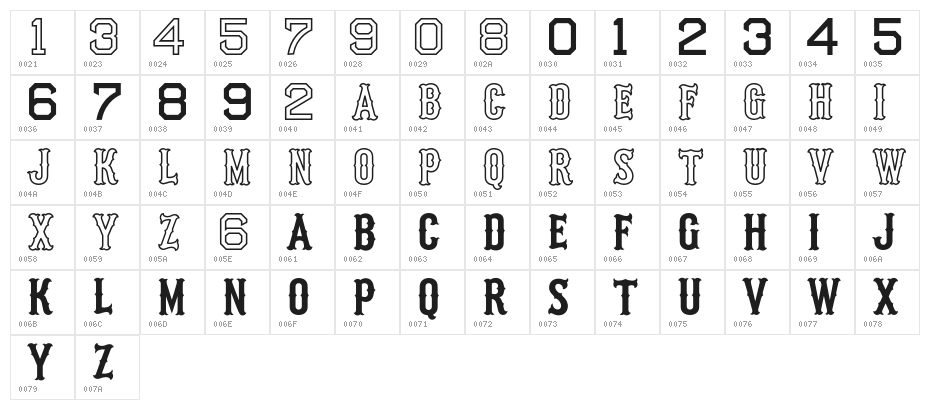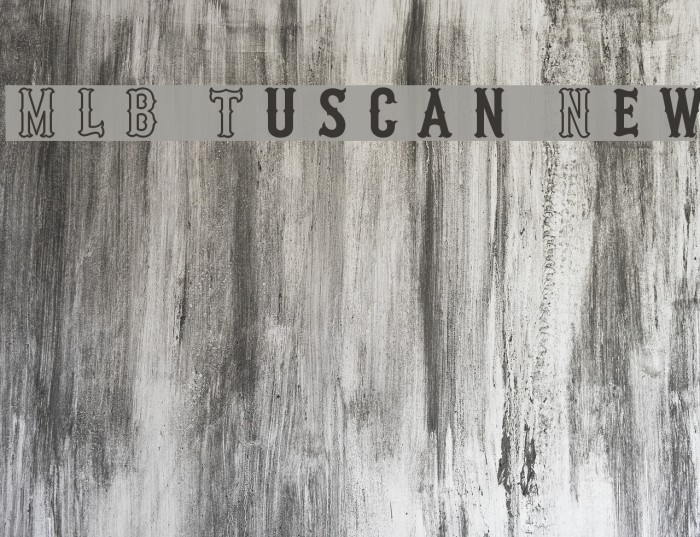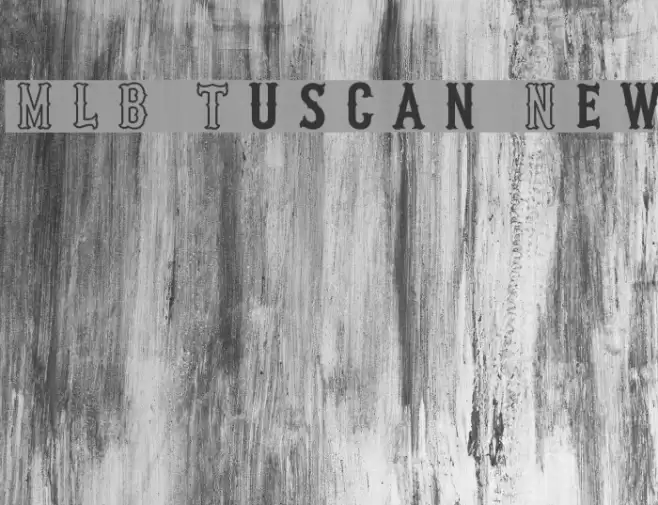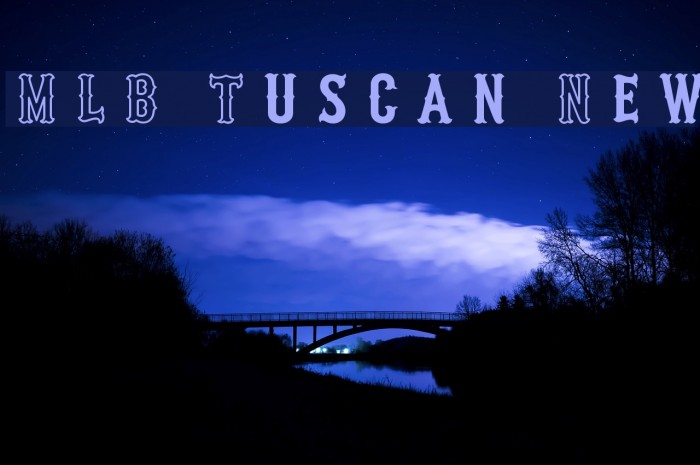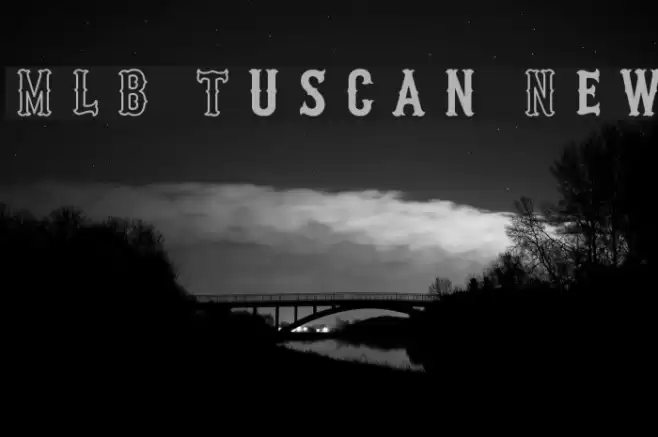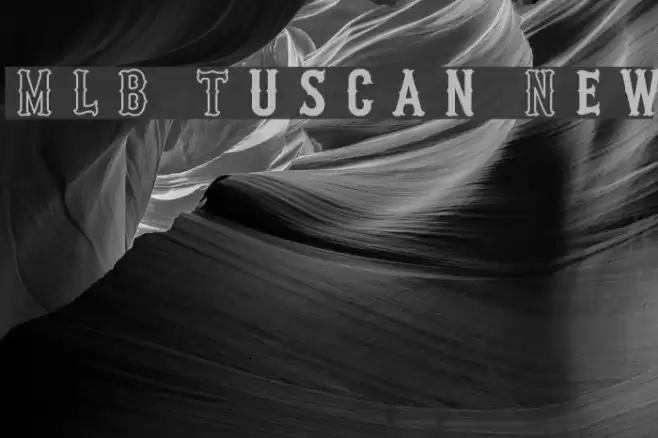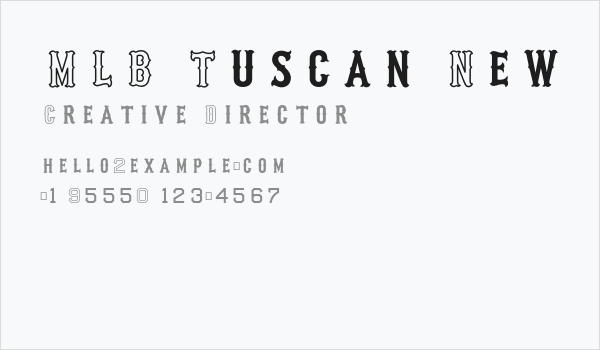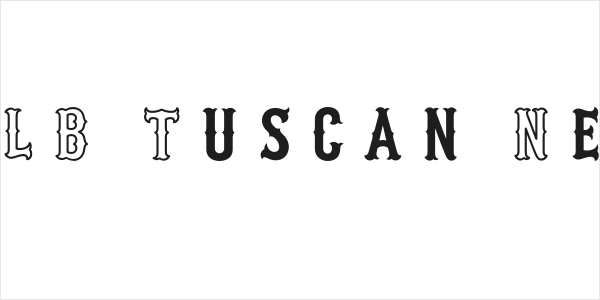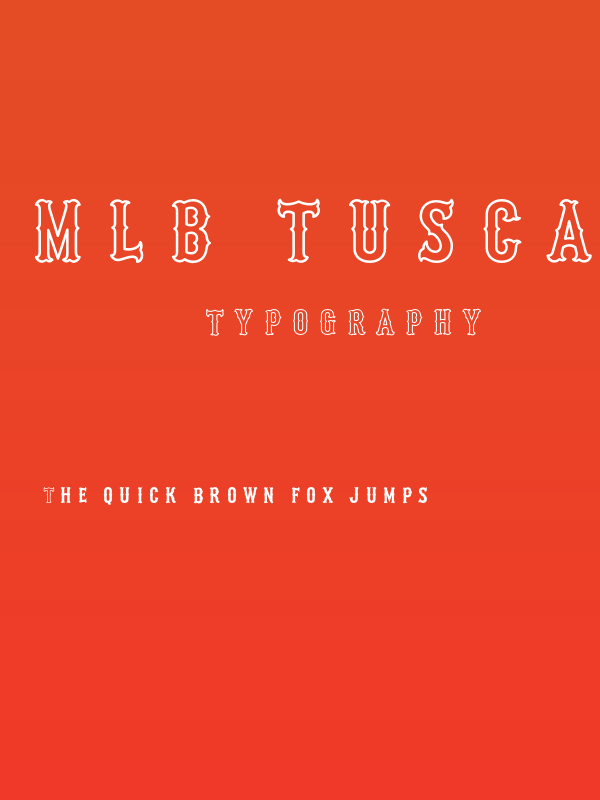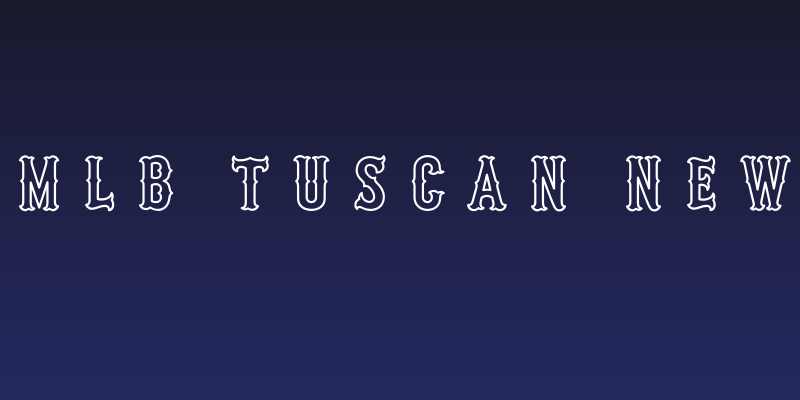
MLB Tuscan New Font
MLB Tuscan New Description
This font features a bold and decorative style with a vintage flair, characterized by its ornate and intricate letterforms. The uppercase letters exhibit a strong presence with their embellished serifs and unique cut-out details, giving them a distinct, eye-catching appearance. The numbers maintain a consistent style, with angular edges and a bold weight that complements the overall aesthetic. This font's design is reminiscent of classic Western or circus-themed typography, making it ideal for projects that require a touch of nostalgia and flair. The spacing between characters is relatively normal, ensuring readability while maintaining its decorative appeal.
Overall StyleVintage
Proposed ProjectsIdeal for vintage-themed posters, event invitations, branding for themed restaurants or bars, and any design requiring a nostalgic or Western touch.